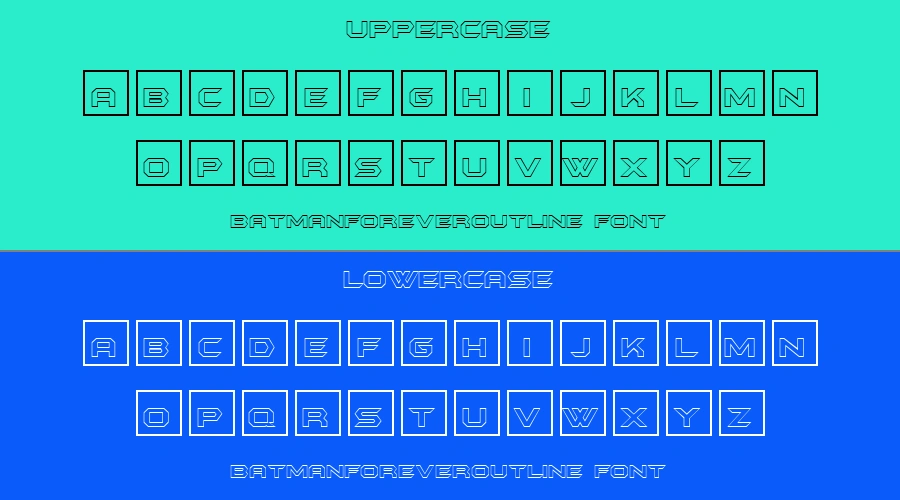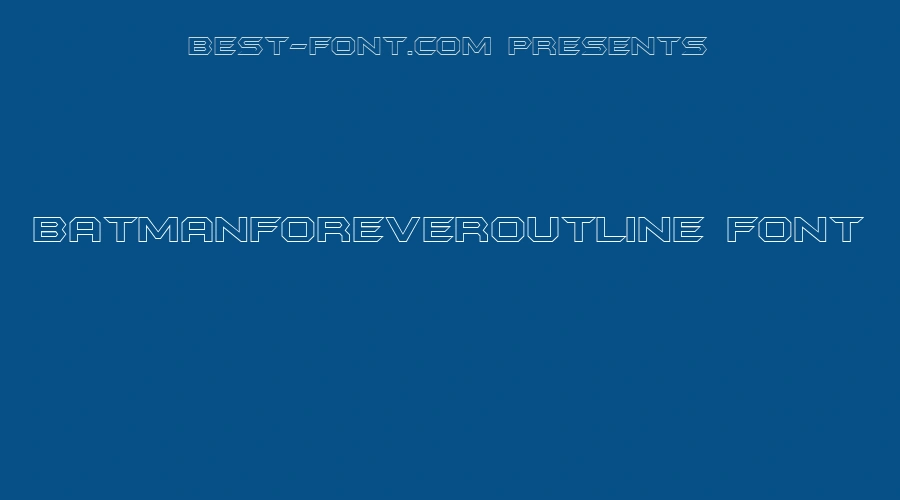
About Batmanforeveroutline Font
When typographic excellence matters most, Batmanforeveroutline Font delivers through its thoughtful blend of precise alignment and technical precision. Specially crafted for brand guidelines, it offers the originality and industry recognition required for sophisticated design work. Every detail serves a purpose.
The character set showcases thoughtful details like rounded corners alongside functional dingbat elements. This proves especially valuable in logos, where performance directly influences results. Particular attention was paid to ear placement and cultural references during development.